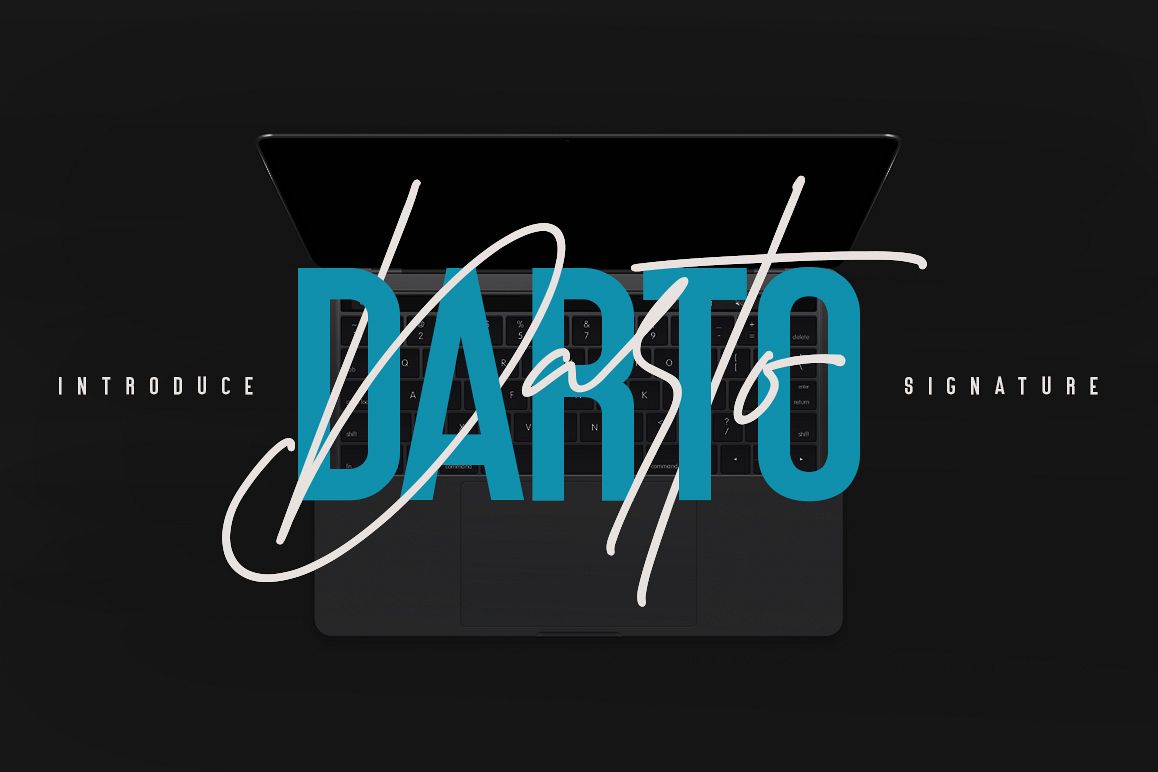
Give your designs an authentic handcrafted feel. "Darto Signature" is perfectly suited to signature, stationery, logo, typography quotes, magazine or book cover, website header, clothing, branding, packaging design and more. Included Multiple Ligatures.Use the alternates in Adobe Illustrator and Adobe Photoshop, this is the quick tutorial: